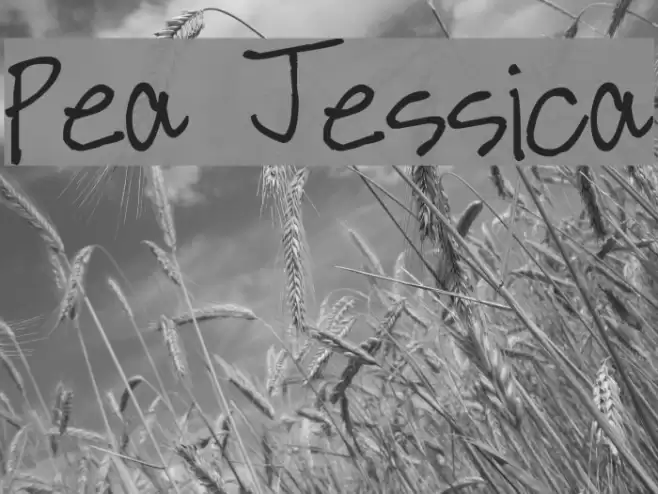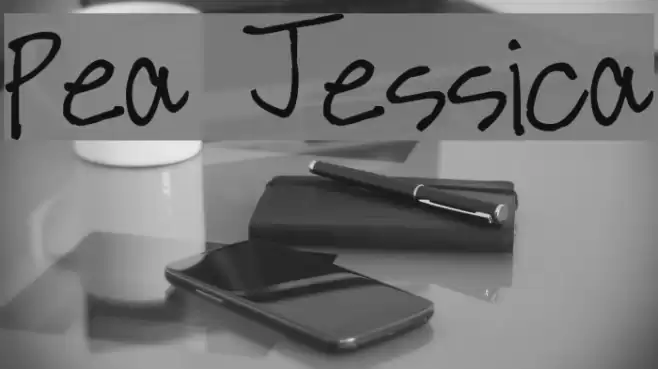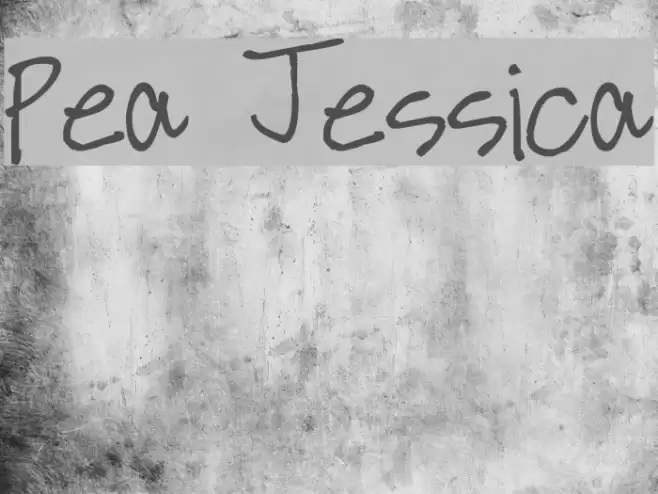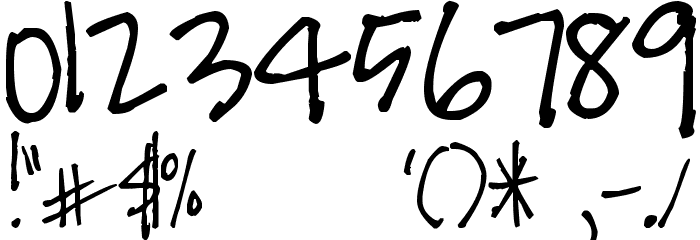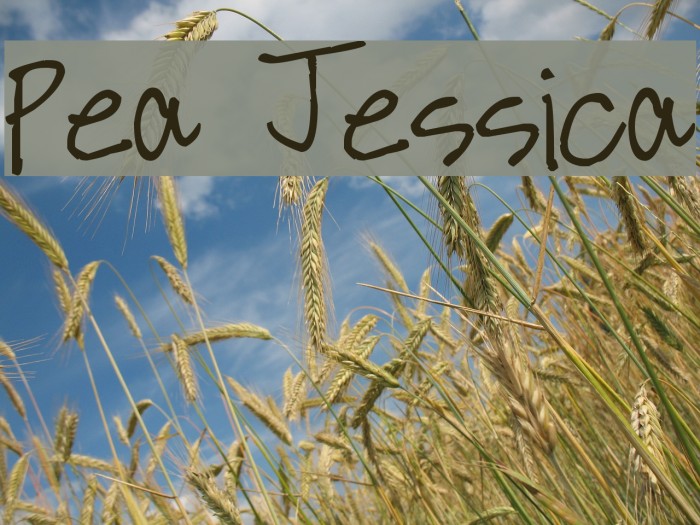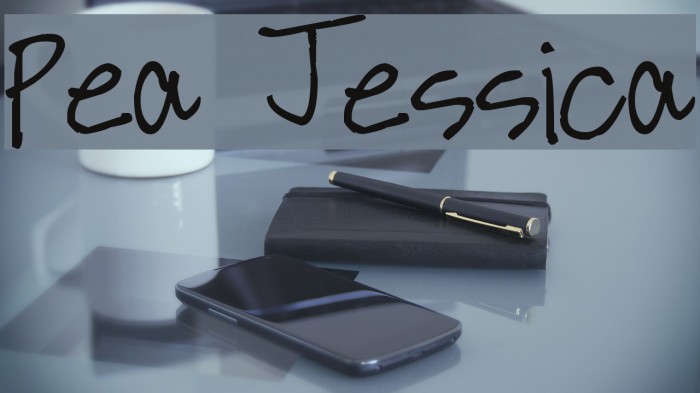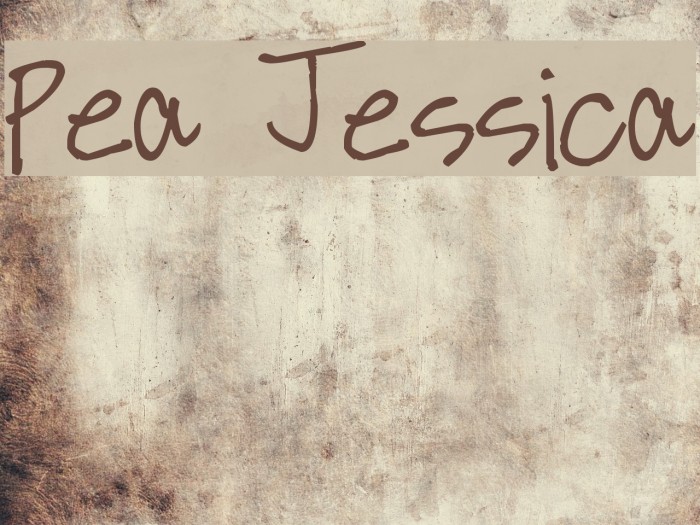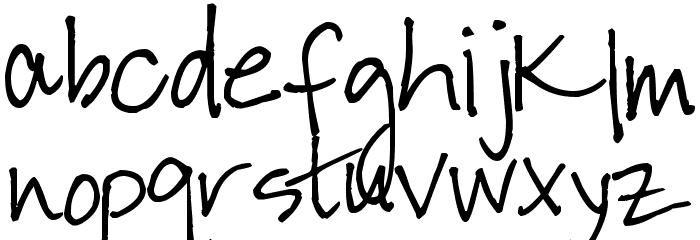
Pea Jessica Font
Pea Jessica Description
This font exudes a casual, handwritten style with a playful and informal appearance. The letters are slightly irregular, mimicking the natural flow of handwriting. The uppercase and lowercase characters maintain a consistent style, with a slight slant that adds to the relaxed feel. The numerals and special characters follow the same aesthetic, ensuring a cohesive look across all text. The strokes are moderately thick, providing good legibility while retaining the handwritten charm. This font is perfect for projects that require a personal touch or a creative flair.
A casual, handwritten font with a playful and informal style from Uncategorized fonts.
- Proposed Projects: Ideal for greeting cards, personal notes, creative projects, and informal branding.
- Overall Style: Casual, Playful
- Use Case: Logos, Headlines, Informal Text